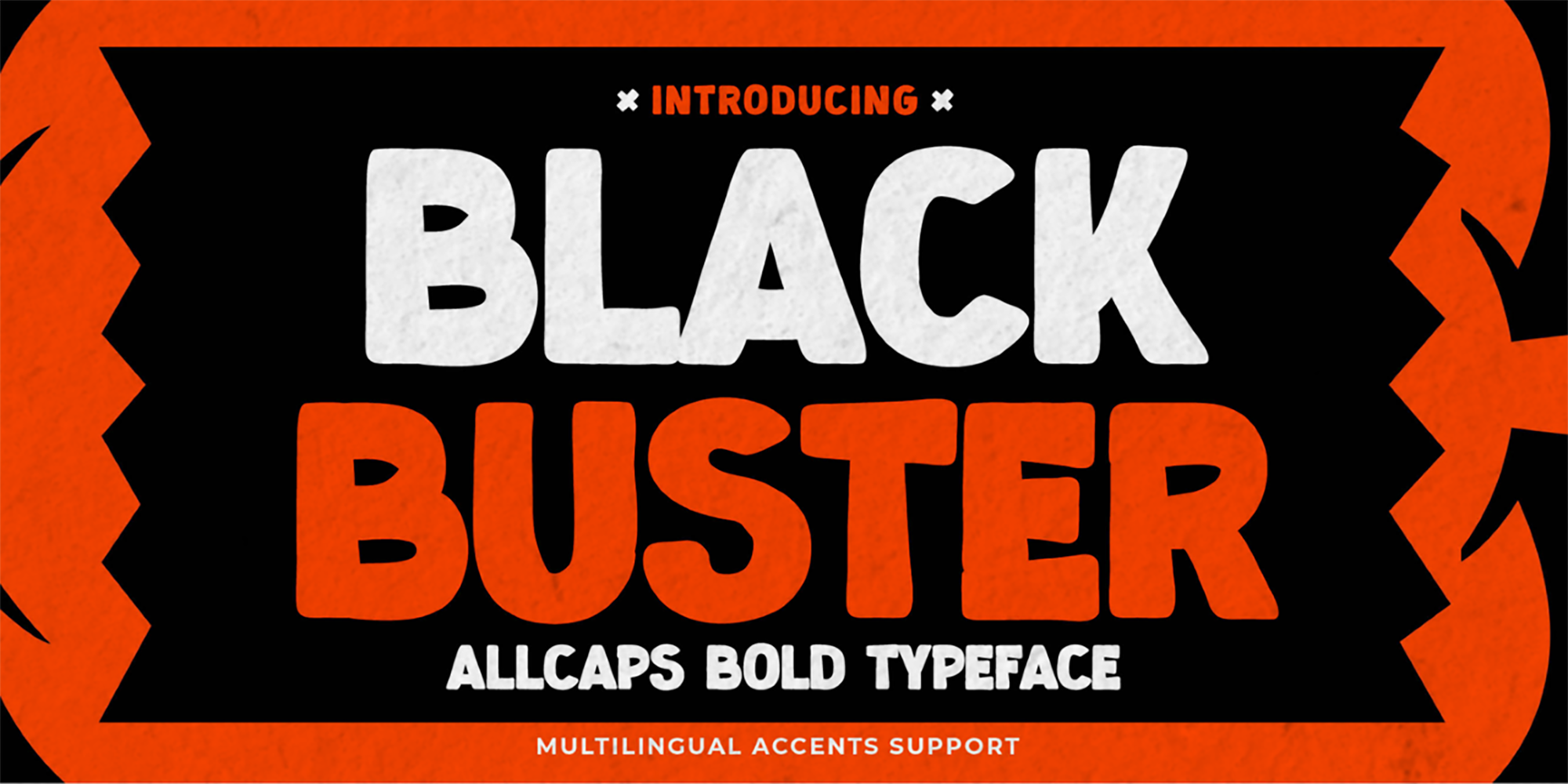
The Blackbuster Font is perfect for various design applications including blockbuster movie posters, action film titles, superhero comic graphics, gaming industry branding, entertainment marketing campaigns, thriller book covers, dramatic advertising materials, and high-impact promotional designs. This powerful typeface excels in creating commanding visual presence for both digital media and print entertainment applications.
What makes Blackbuster Font exciting is its bold and commanding character that instantly captures the explosive energy of blockbuster entertainment and high-stakes action. The font features strong letterforms with dramatic impact and cinematic qualities that evoke feelings of excitement, power, and adrenaline-pumping thrills. Its commanding styling and blockbuster appearance make it perfect for brands that want to create maximum visual impact and dominate attention in competitive entertainment markets.
The Blackbuster Font family includes multiple weights and styles, offering designers comprehensive options for their high-impact projects. The family typically consists of regular, bold, heavy, and condensed variations, along with dramatic effects and cinematic elements, providing versatility for different entertainment contexts and ensuring perfect harmony across blockbuster applications.
Whether you're designing for film studios, gaming companies, or entertainment marketing agencies, Blackbuster Font Free Download delivers the explosive quality and visual power that modern entertainment designers demand. The font's blockbuster-inspired design combined with its professional functionality makes it an indispensable tool for creating compelling visual communications that command attention and deliver the dramatic impact of big-budget entertainment.